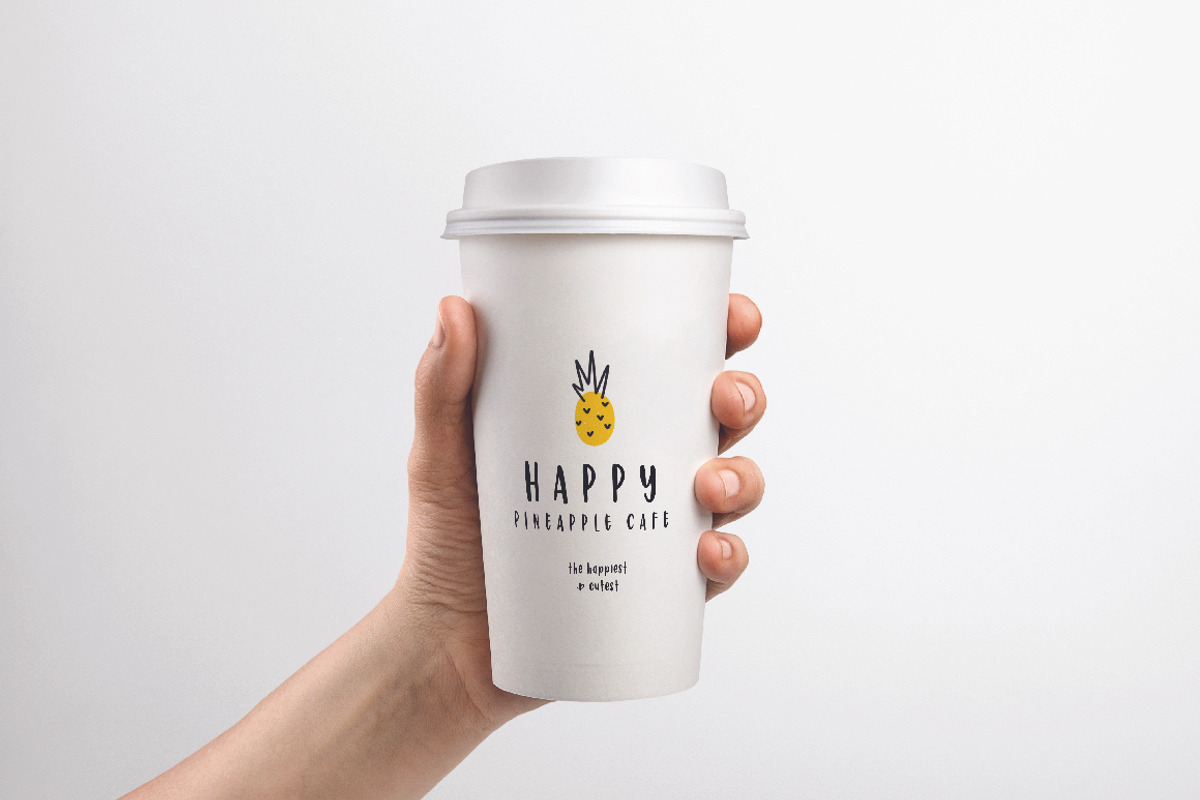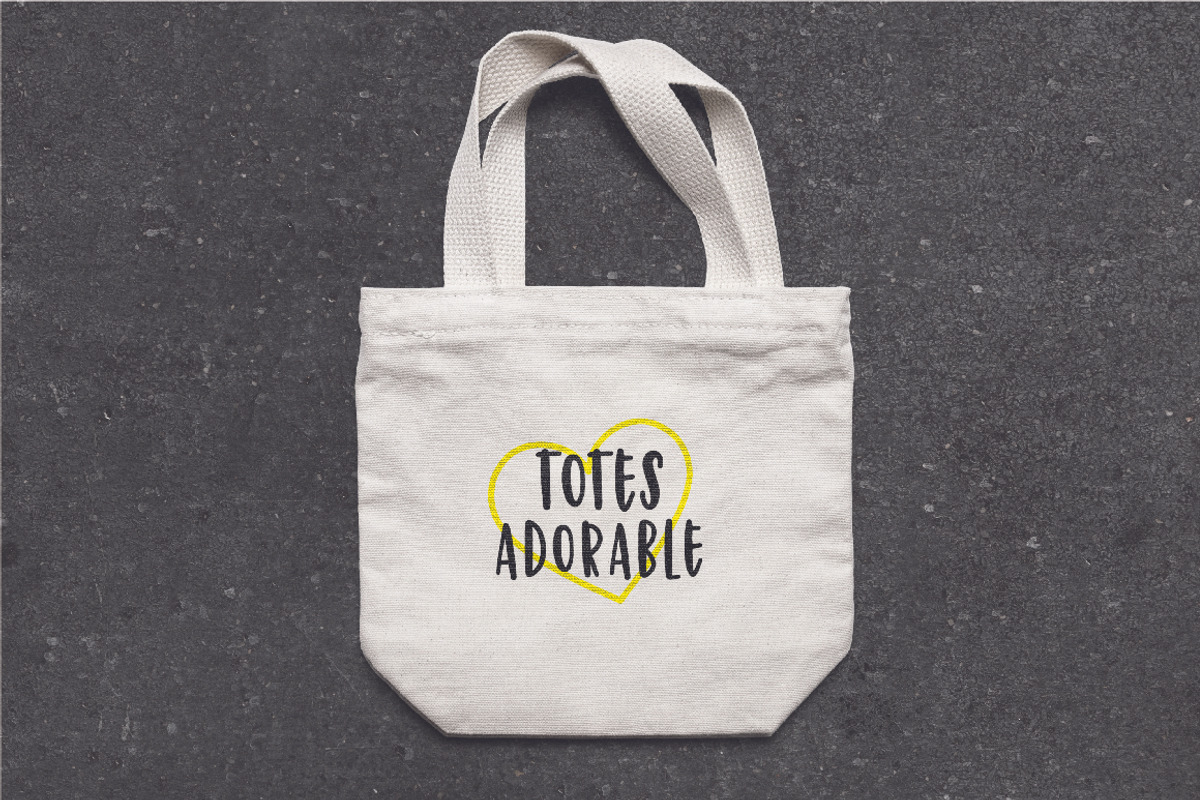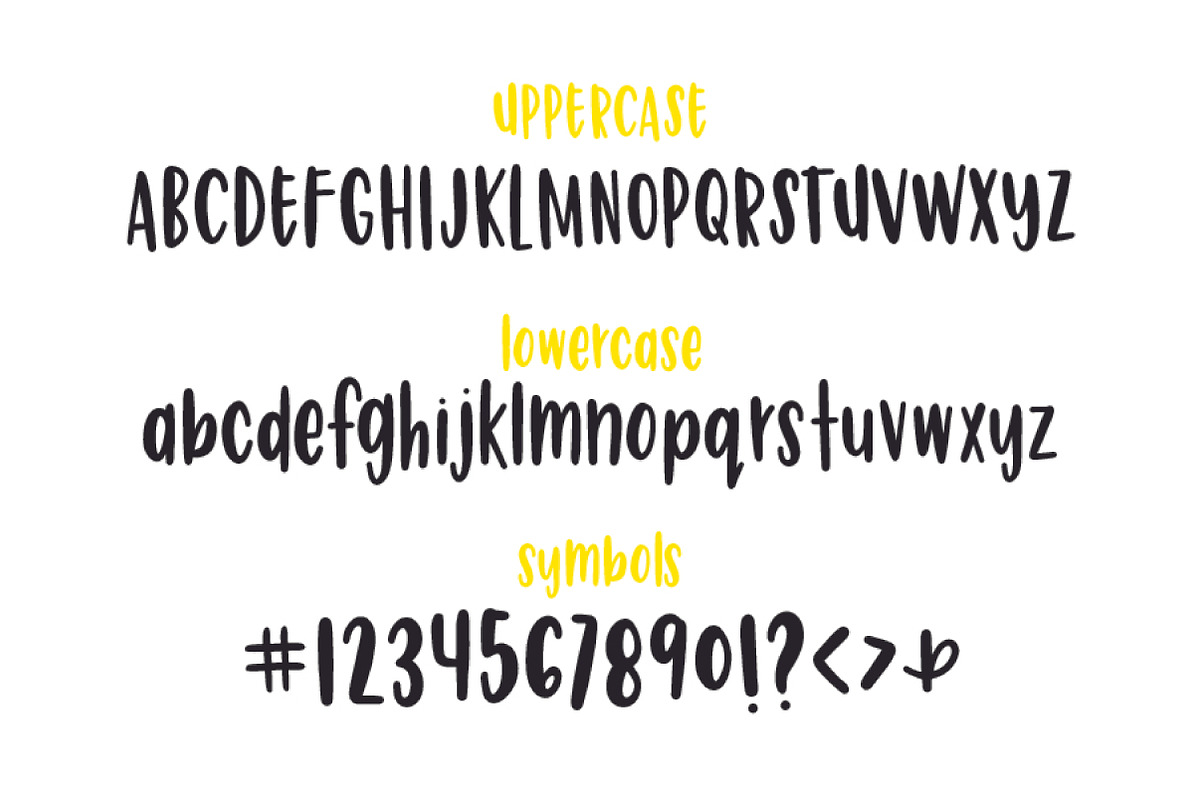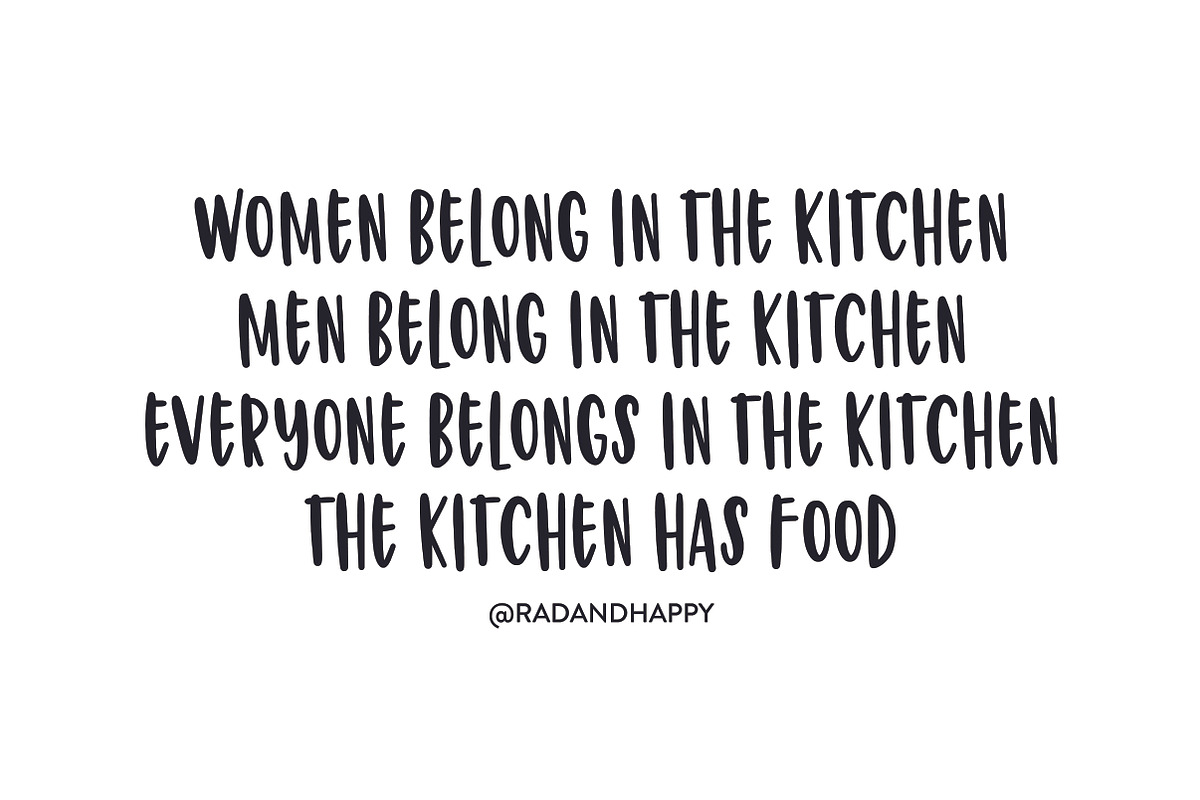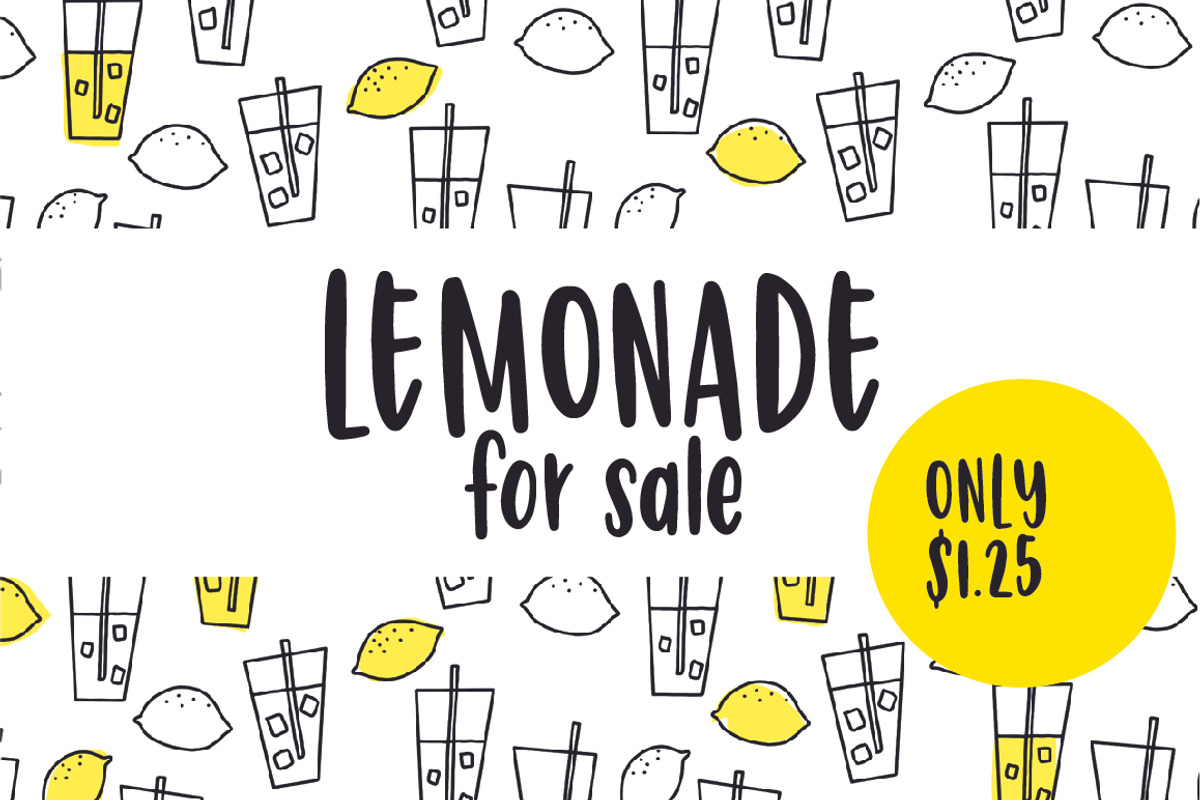
Happy Dance | Hand Lettered Font
Happy Dance | Hand Lettered Font by Rad And Happy is a font selected for branding, posters, packaging, typography.
- It contains a full set of lower & uppercase letters, along with punctuation and numerals.
Happy Dance | Hand Lettered Font by Rad And Happy fits naturally into Branding, posters, packaging, typography.